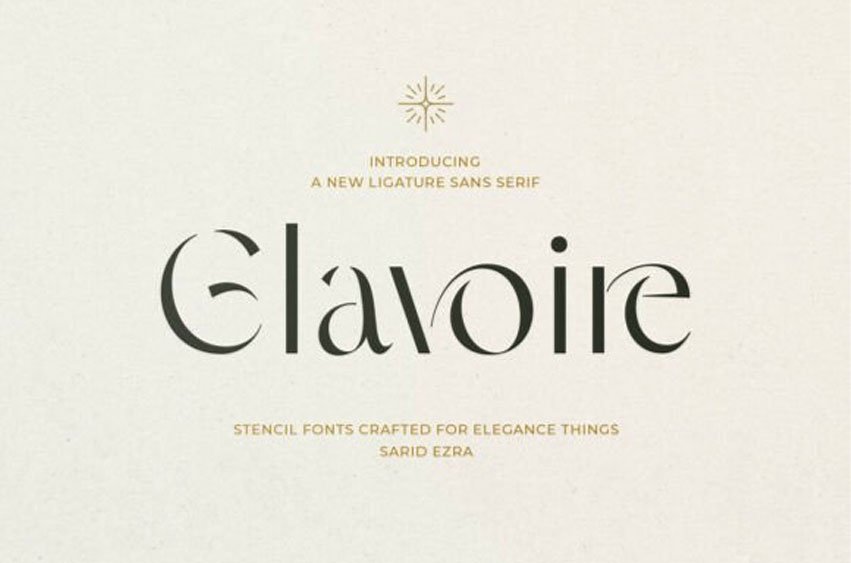
Glavoire Font Redefine sophistication with Glavoire, a stunning ligature sans serif. This typeface represents a masterclass in modern elegance, blending the clean structure of a contemporary sans serif with the artistic flair of delicate stencil cuts.
Characterized by its unique, flowing ligatures and high-fashion aesthetic, Glavoire is “crafted for elegance things”—making it the premier choice for luxury branding, high-end editorial layouts, perfume packaging, and boutique signage. Its rhythmic letterforms and strategic negative space turn every headline into a piece of high-contrast art.